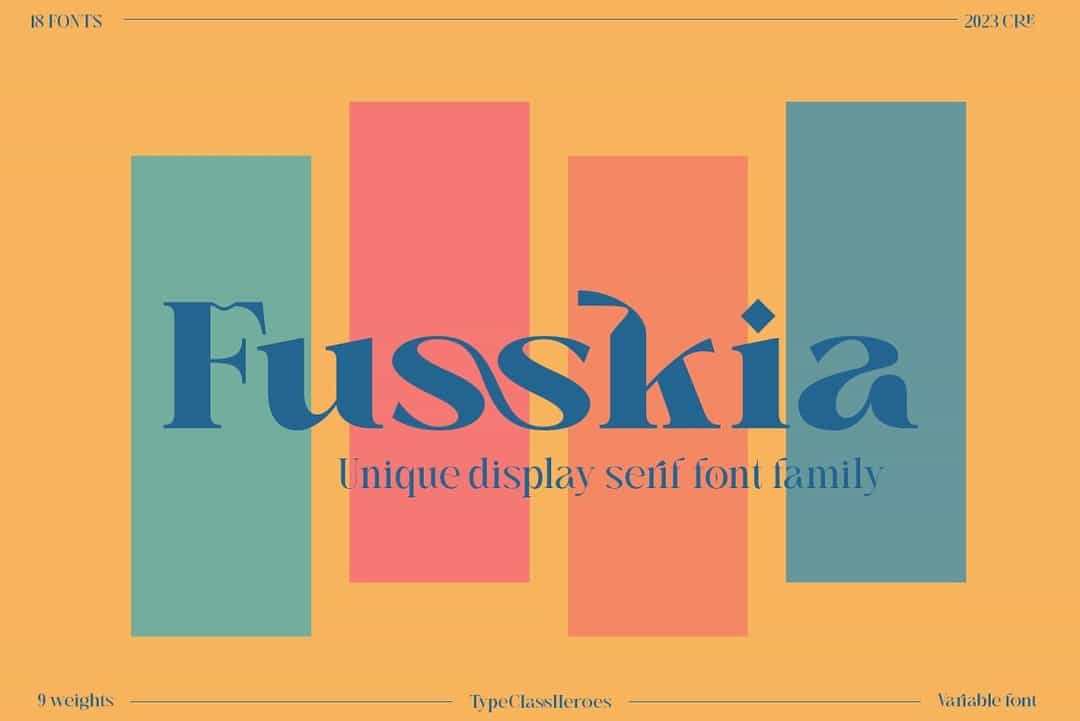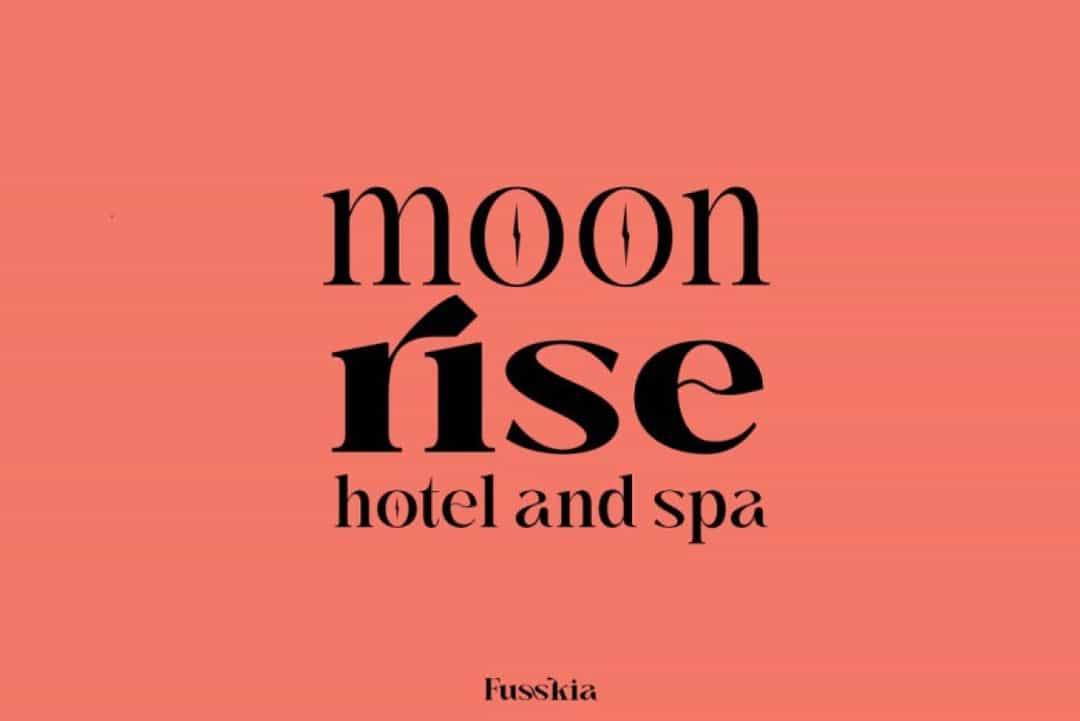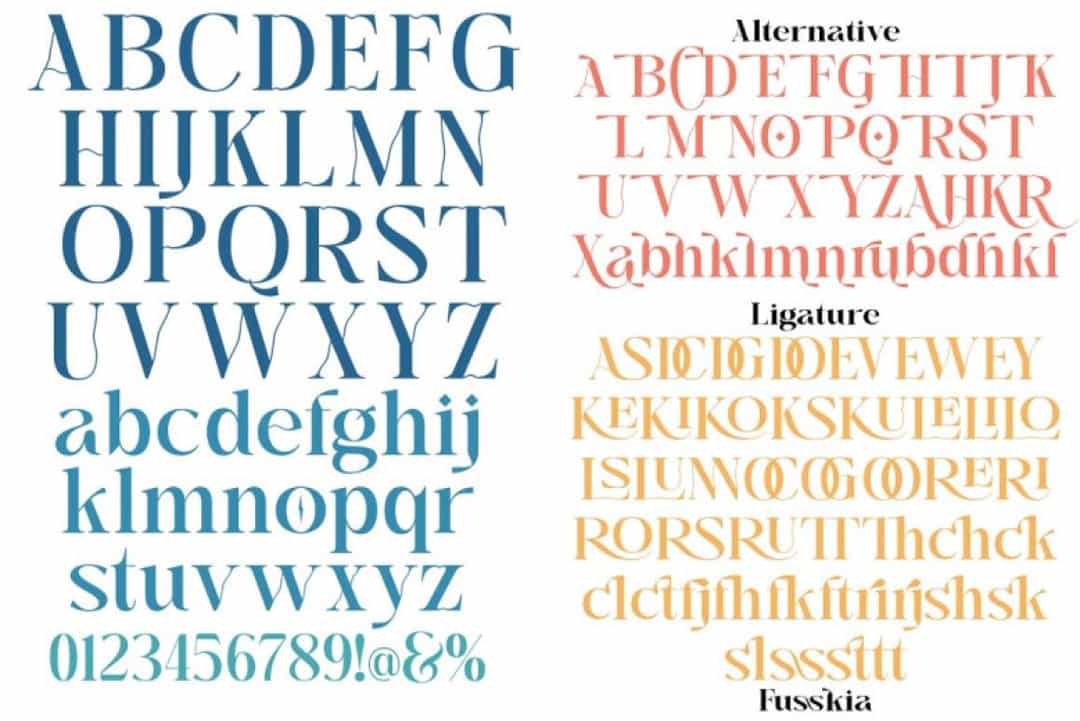
Fusskia is an elegant variably displayed serif font that comes equipped with various styles and ligatures for an eye-catching appearance. Its distinct design boasts multiple sizes and weights that you can play around with to create the ideal atmosphere and reading comfort. Fusskia supports languages like Danish, English, Finnish, French German Norwegian Portuguese Spanish Swedish.